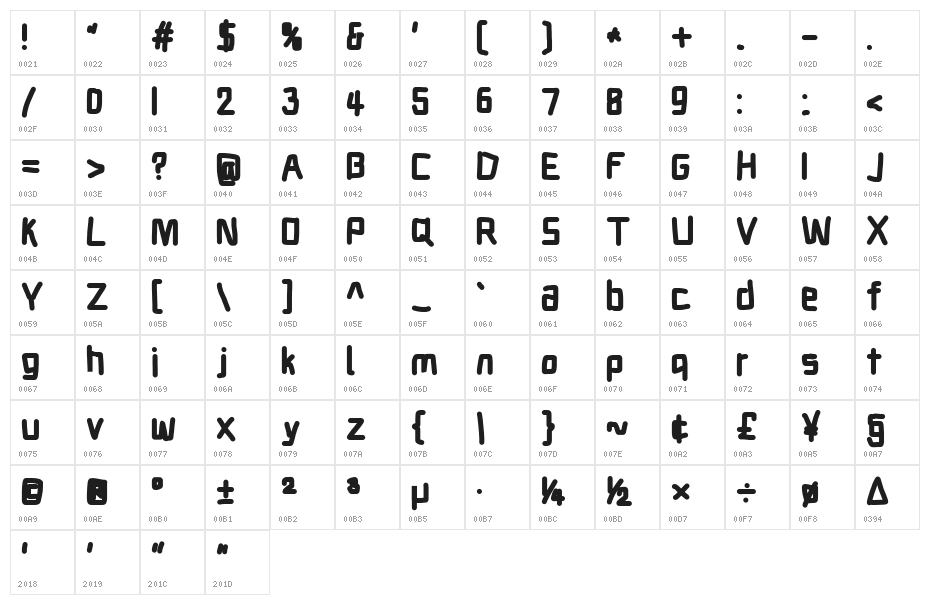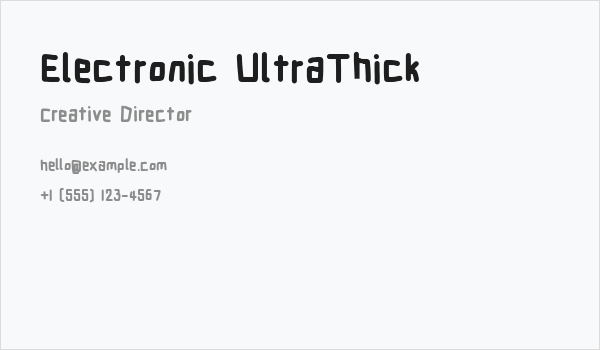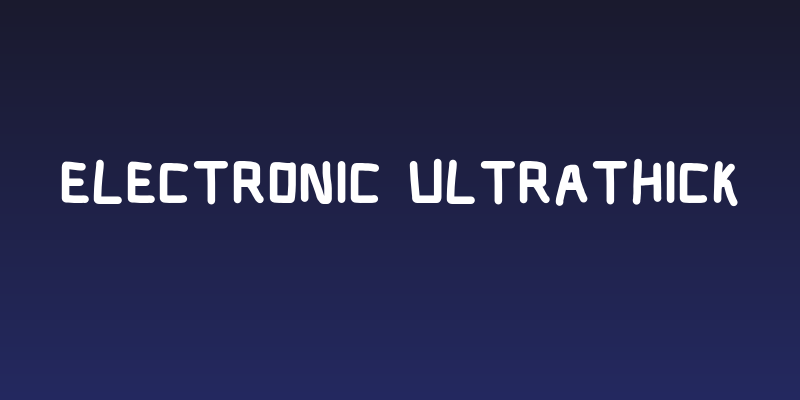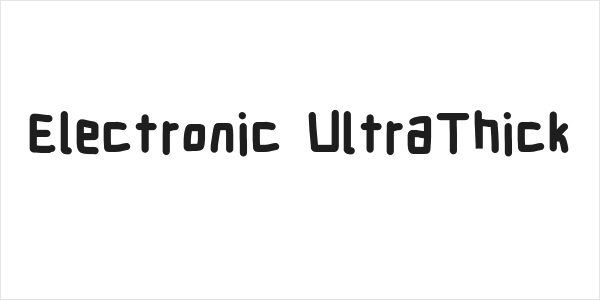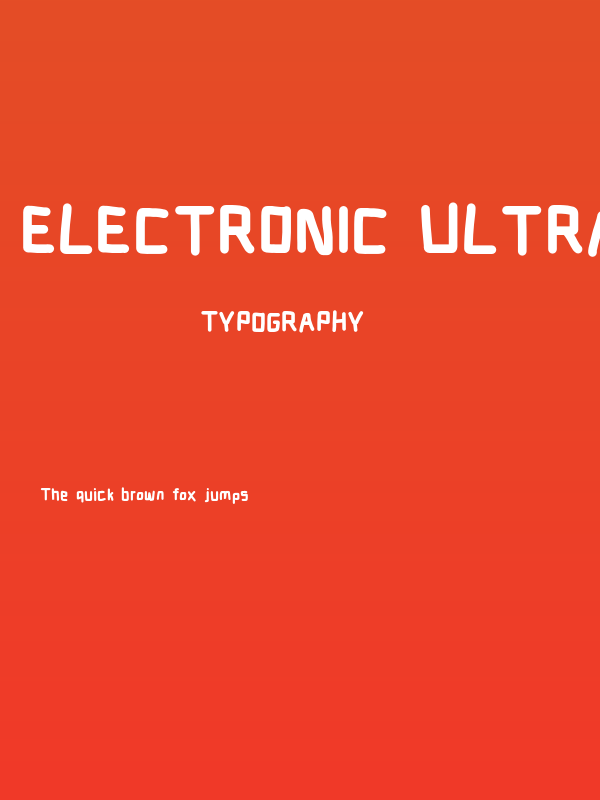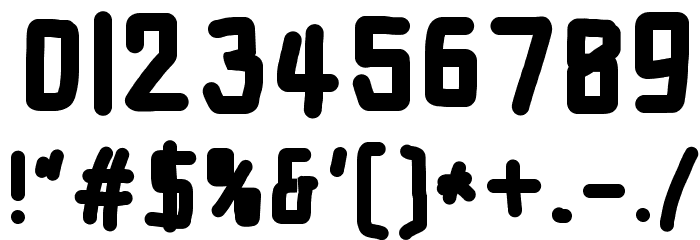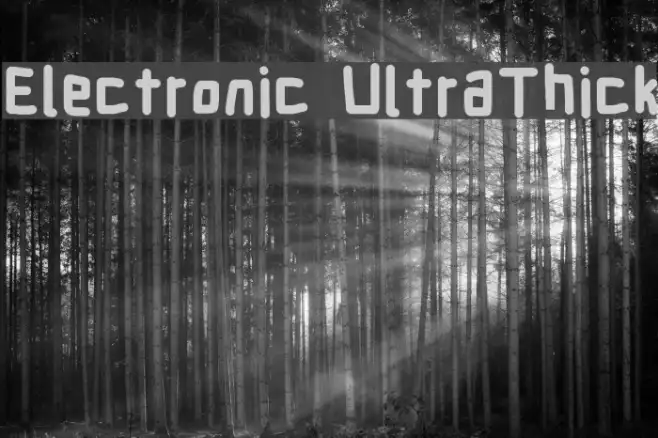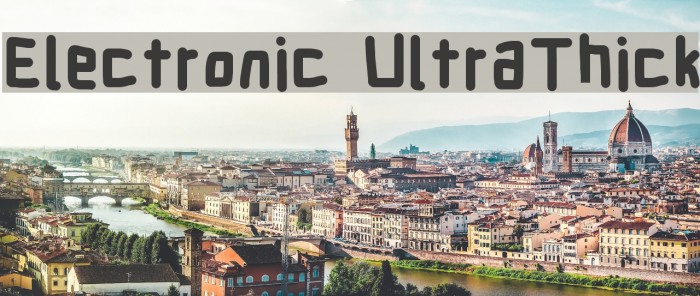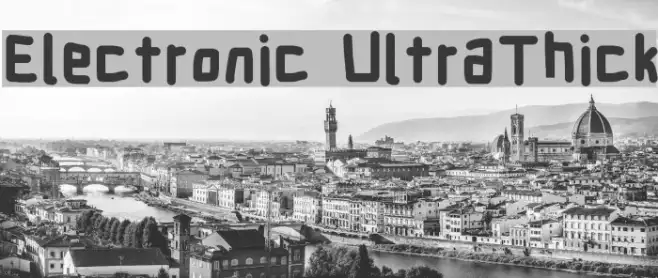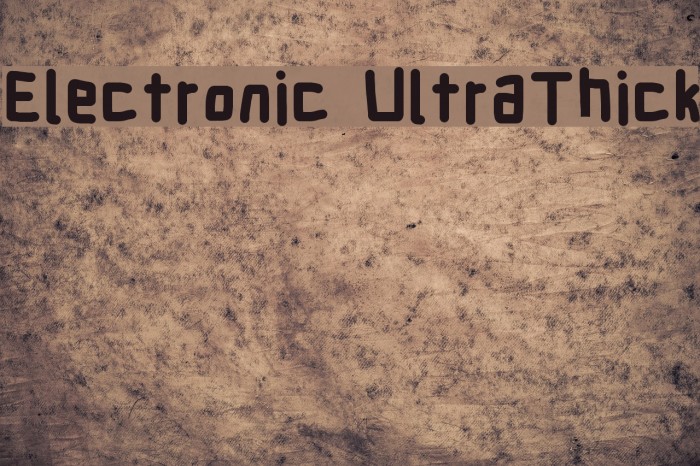
Electronic UltraThick Font
Electronic UltraThick Description
This font features a bold, ultra-thick style with a distinctly modern and electronic feel. The characters are rounded and slightly condensed, giving a robust and impactful appearance. The uppercase letters are uniform in height, while the lowercase letters maintain a consistent baseline with a slight variation in height for added character. The numerals are bold and clear, making them easily distinguishable. Special characters are designed with the same thick strokes, ensuring consistency across the entire typeface. This font's strong presence makes it ideal for attention-grabbing designs.
| Proposed Projects | Ideal for digital interfaces, tech branding, video game titles, and futuristic posters. |